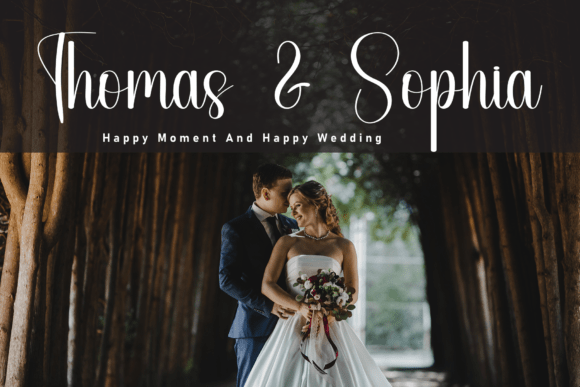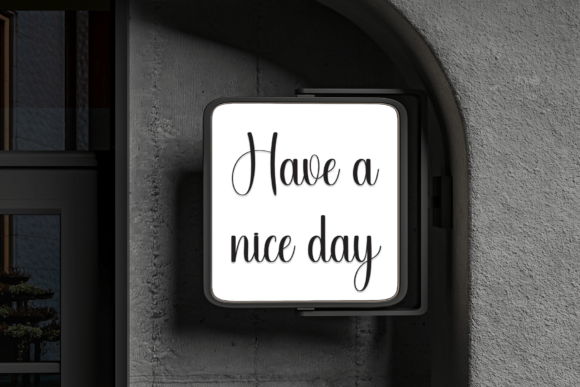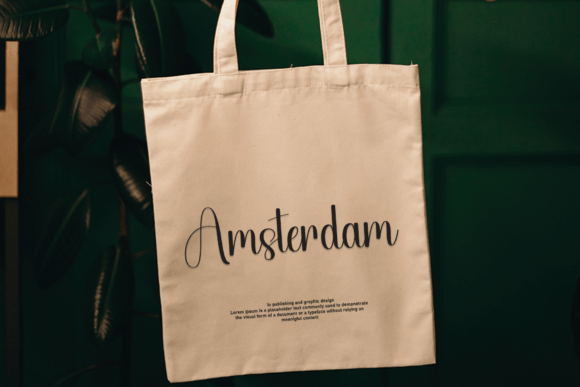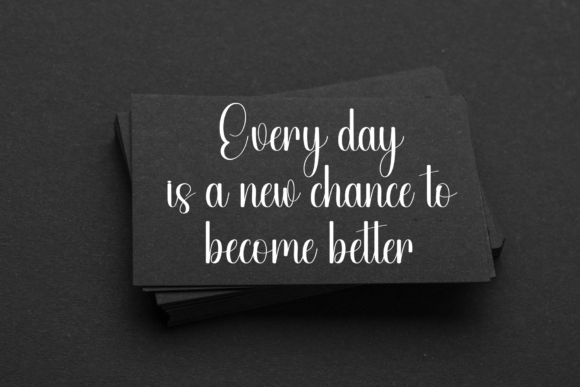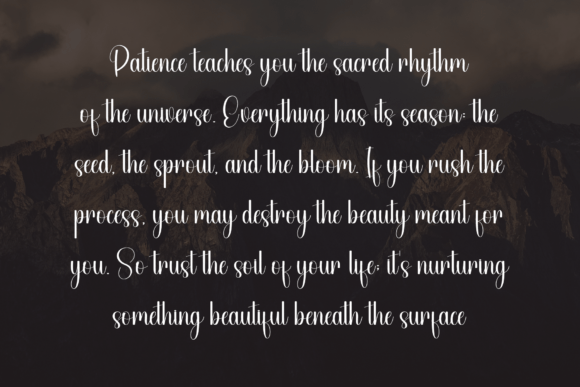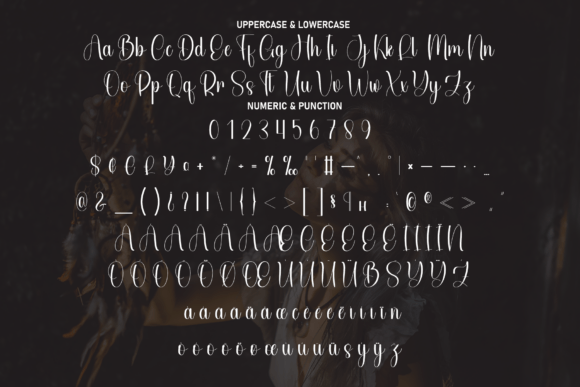
Discover the Enchanting Font: A Whimsical Touch for Your Designs
Immerse yourself in the captivating allure of a handwritten display font that effortlessly evokes a sense of warmth and affection. This enchanting blend of charisma and friendliness provides the perfect canvas for creating stunning wedding invitations or genuine greeting cards. Akin to a dash of happiness, this font enhances any craft that requires an essence of joy.
The Perfect Blend of Style and Emotion
The Enchanting Font is a masterful blend of style and emotion, designed to bring a touch of whimsy to your designs. Each letter is carefully crafted to bloom into a visually enticing spectacle, transforming your designs into an eloquent demonstration of creative expression. Whether you’re a designer, crafter, or DIY enthusiast, this font is sure to captivate your audience and leave a lasting impression.
With the Enchanting Font, the possibilities are endless. Use it to create:
- Stunning wedding invitations that set the tone for a magical day
- Genuine greeting cards that speak from the heart
- Whimsical craft projects that showcase your creativity
- Social media graphics that add a touch of personality to your brand
- Custom signage that makes your business stand out
What Makes the Enchanting Font So Special?
So, what sets the Enchanting Font apart from other fonts? Here are just a few features that make it truly special:
- Handwritten charm: Each letter is carefully crafted to evoke a sense of warmth and affection
- Whimsical flair: The font’s playful, cursive style adds a touch of magic to any design
- Versatility: Use it for a wide range of projects, from wedding invitations to social media graphics
- Ease of use: The font is easy to read and works beautifully in a variety of sizes
Tips for Getting the Most Out of the Enchanting Font
To get the most out of the Enchanting Font, try these tips:
- Experiment with colors: The font looks beautiful in a range of colors, from soft pastels to bold brights
- Play with textures: Add a touch of whimsy with textures like glitter, watercolor, or floral patterns
- Mix and match: Combine the Enchanting Font with other fonts for a unique, layered look
- Don’t be afraid to get creative: The Enchanting Font is designed to inspire creativity, so don’t be afraid to try new things!
- Handwritten display font
- Whimsical, cursive style
- Perfect for wedding invitations, greeting cards, and craft projects
- Easy to read and works beautifully in a variety of sizes